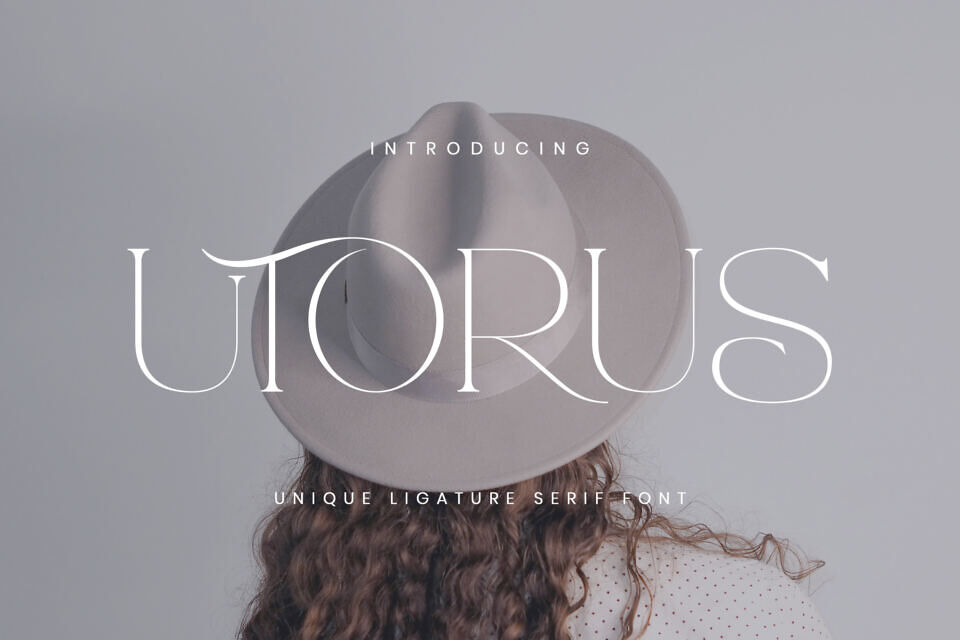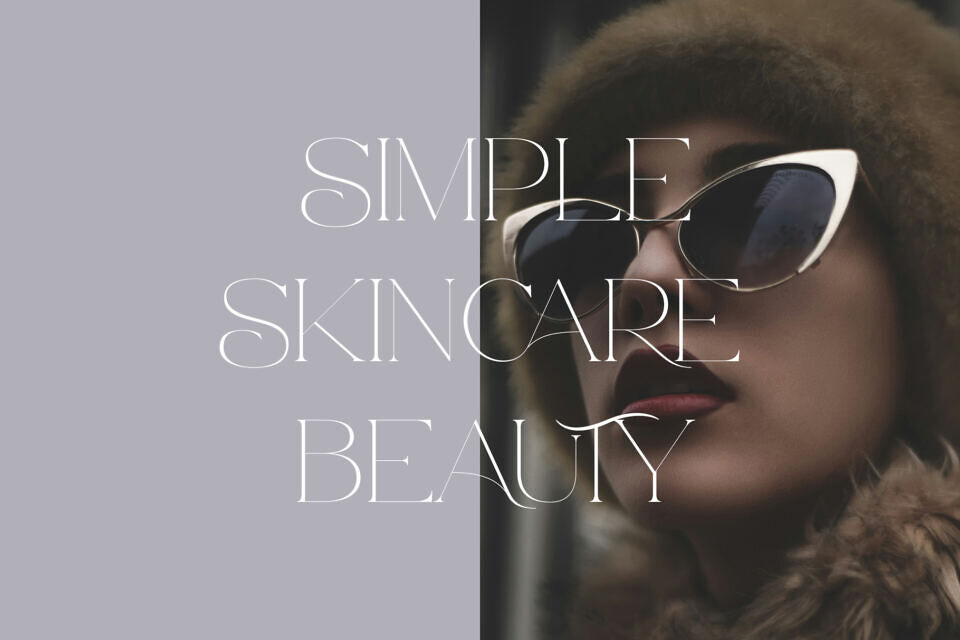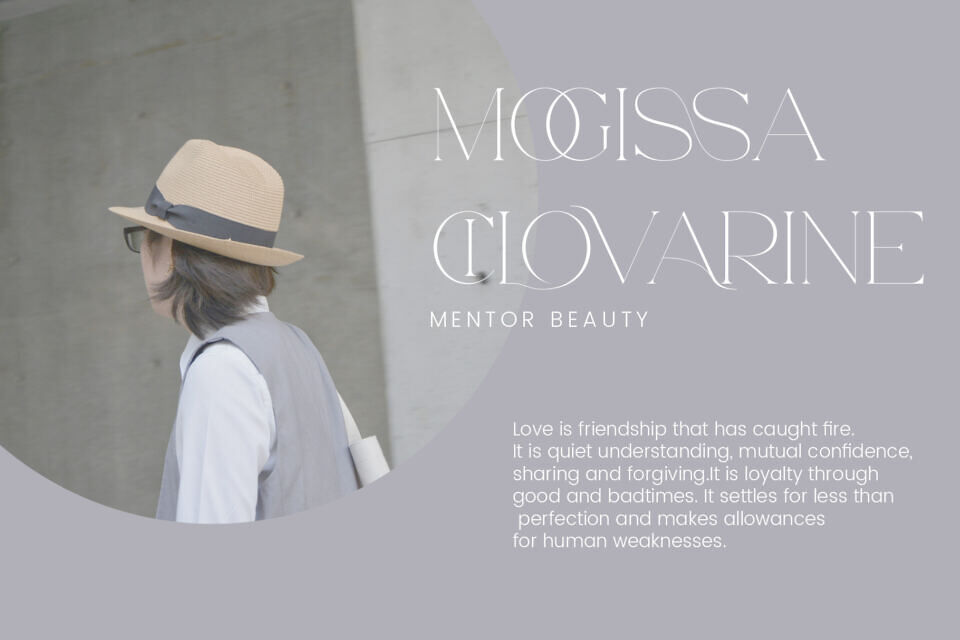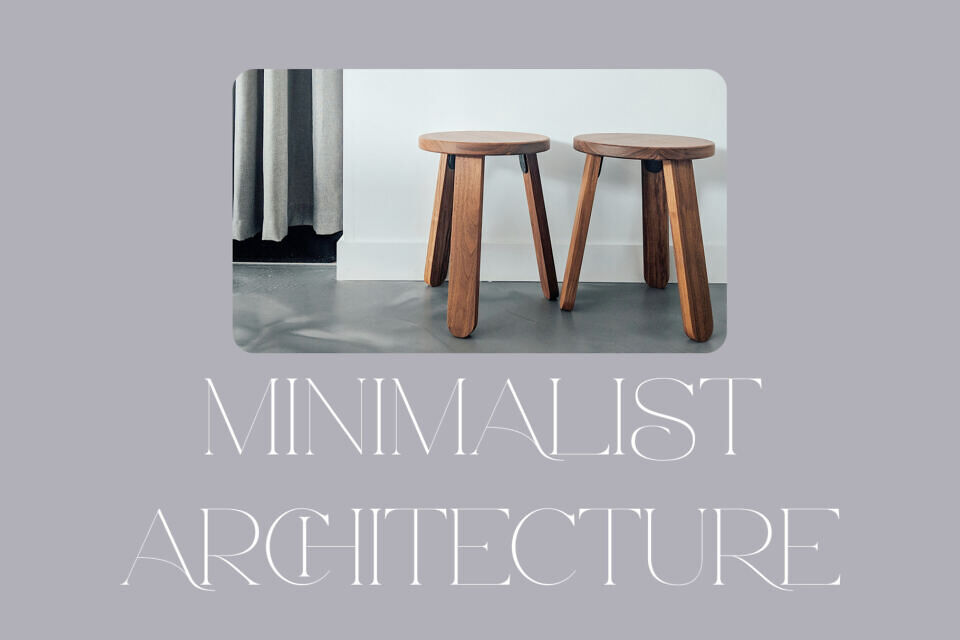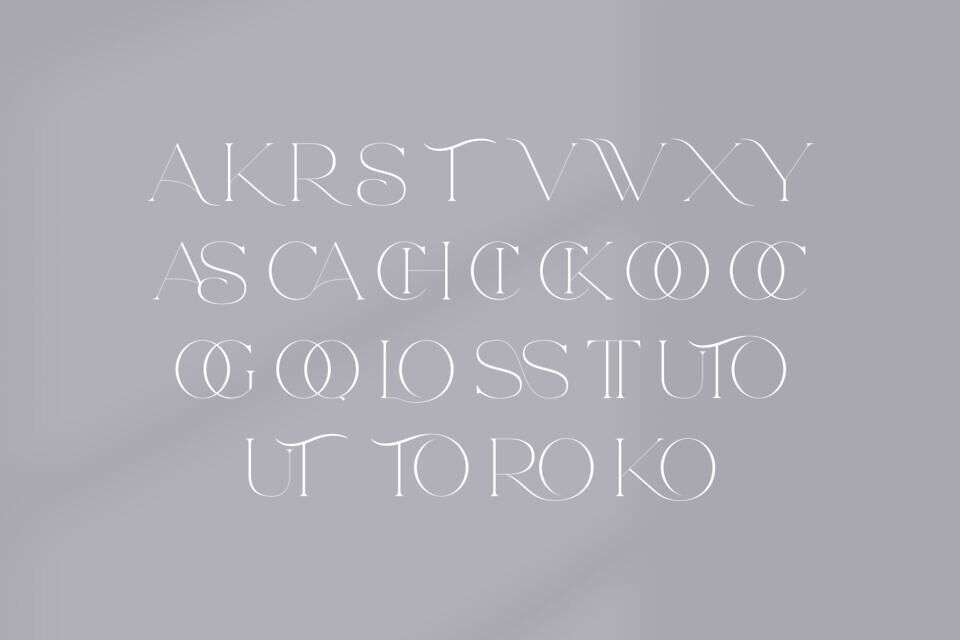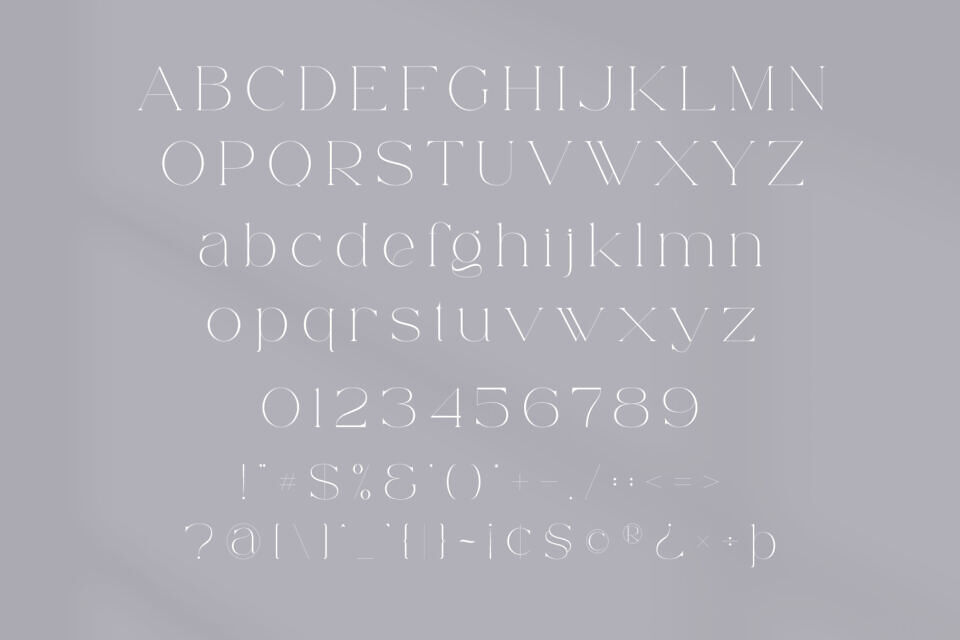
Utorus Font
Utorus is a stylish, elegant modern font inspired by minimalist design. It’s ideal for creating visually appealing templates, brochures, videos, and advertisements, as well as crafting distinctive logos and brand identities.